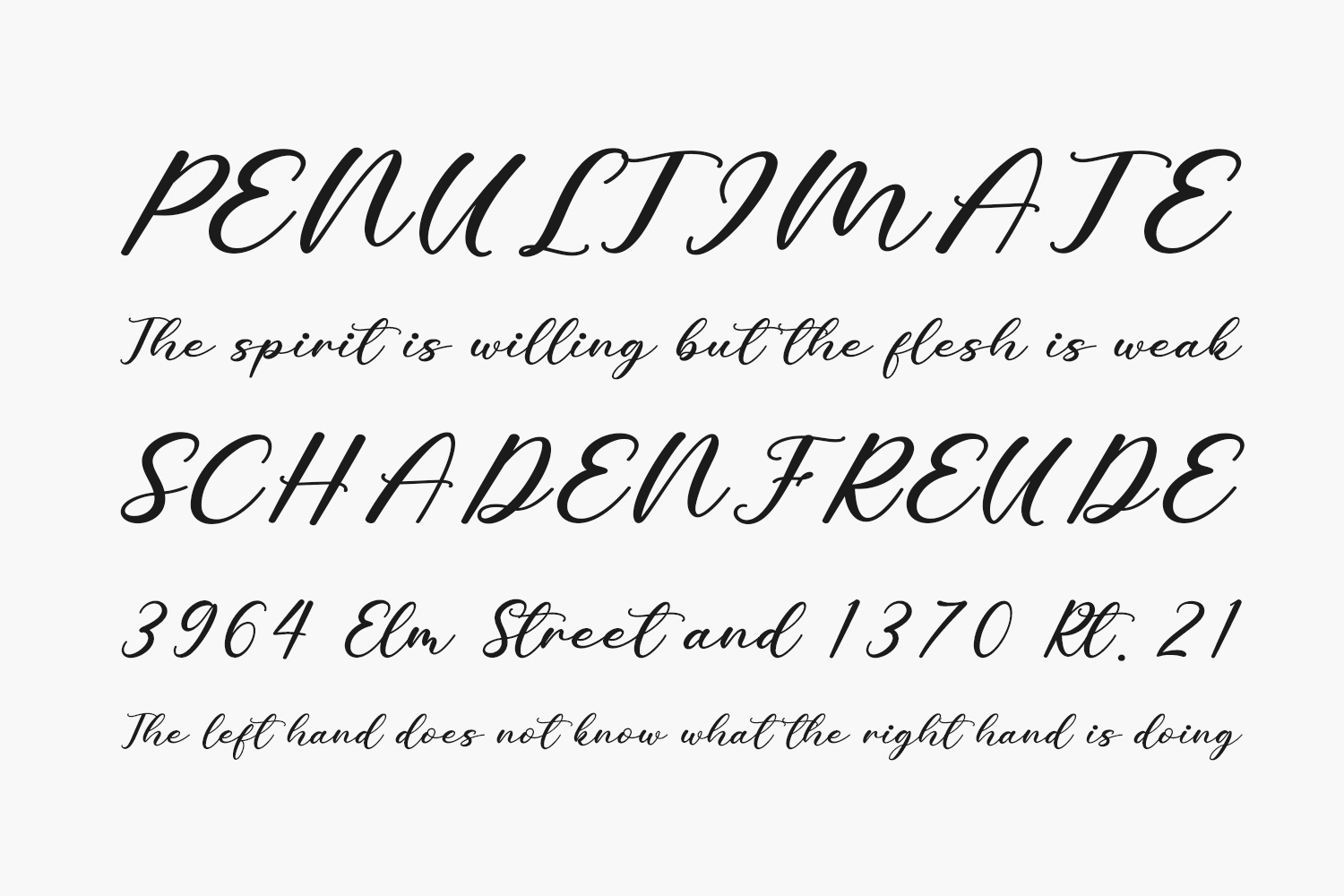
Cathalia Free Font – Elegant Script Typeface for Romantic & Stylish Designs
Cathalia is a graceful and elegant script font designed by Nirmala Creative to bring softness and charm to your creative projects. With its flowing strokes, natural curves, and hand-drawn appearance, this free decorative typeface works perfectly for crafting romantic logos, greeting cards, social media quotes, wedding invitations, and more. Available in OTF format — ideal for designers seeking a stylish, expressive script font that blends sophistication with accessibility.
Why Choose Cathalia?
- Elegant Style: Combines soft cursive strokes with natural flow for a warm, personal touch.
- Ideal for Invitations: Perfect for formal stationery sets, RSVP cards, or bridal name typography needing a romantic tone.
Where to Use Cathalia?
Cathalia shines across a variety of creative applications:
- Logos & Branding: Adds warmth and elegance to brand identities for lifestyle blogs, fashion labels, or boutique shops.
- Social Media Quotes: Creates bold text overlays for Instagram Stories, Pinterest pins, TikTok videos, and YouTube banners.
- Wedding Invitations: Brings personality to formal stationery sets, envelopes, and event signage needing a handwritten style.
- Packaging Design: Ideal for product labels on candles, perfumes, or artisanal goods requiring a refined appearance.
- Greeting Cards & Letters: Enhances thank-you notes, birthday cards, and love letters with a human touch.
Design Tips with Cathalia
To get the most from Cathalia, pair it with minimalist sans-serif fonts like Nauman or Gelline for contrast and readability. Use this font at large sizes to highlight its expressive detailing and fluidity. For print work, apply it over textured paper or combine with gold accents to enhance its vintage appeal. Try our interactive font preview tool below to test Cathalia with your own text before downloading!